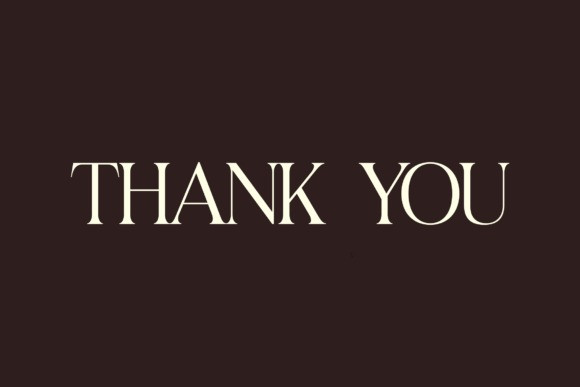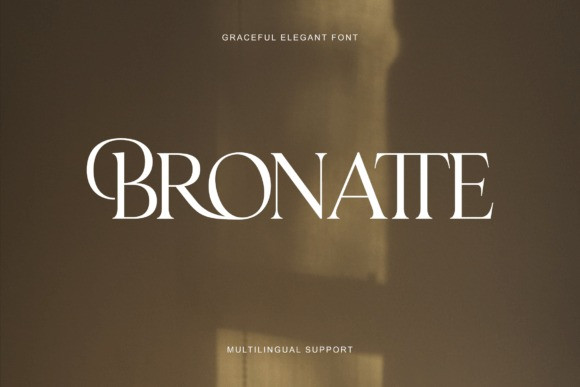
Bronatte Font
Bronatte Font is a font that exudes simplicity and elegance. Whether you’re designing a logo, wedding invitation, or branding materials, this font is sure to add a touch of elegance to your work. Remember that the font is PUA encoded, meaning you can access all delightful glyphs and swashes effortlessly.